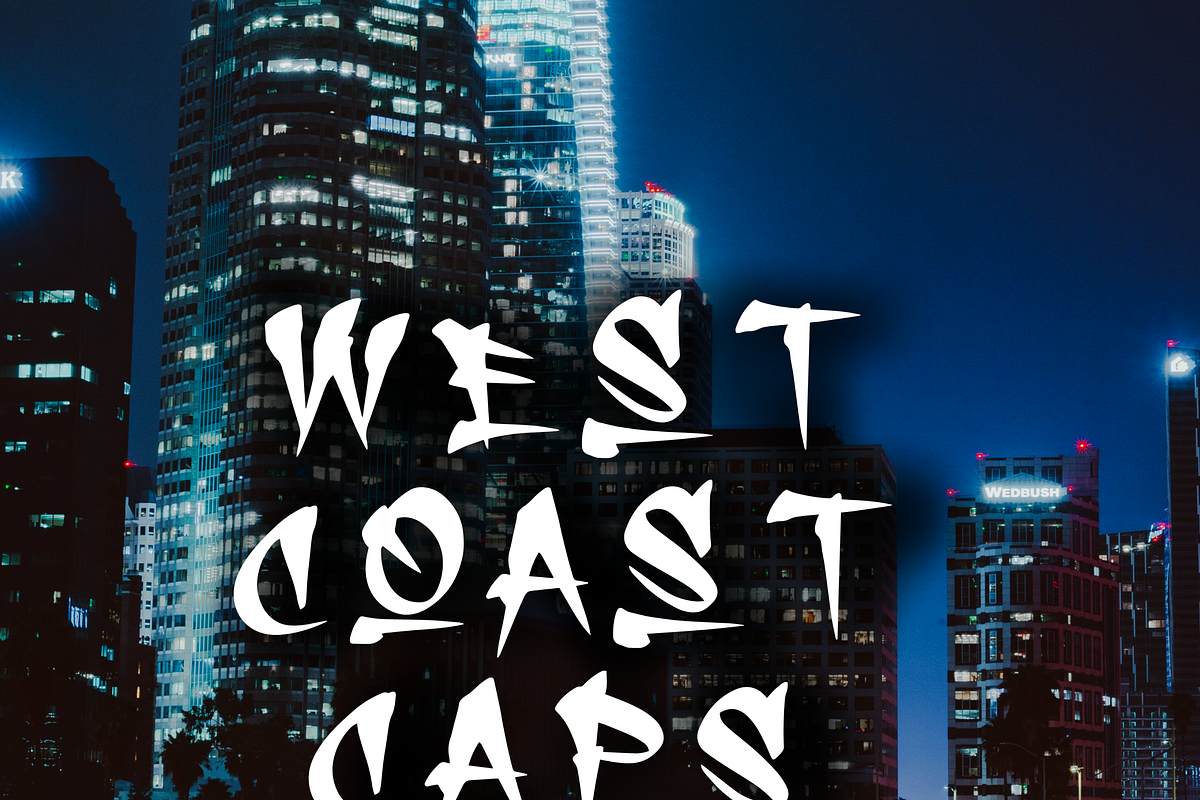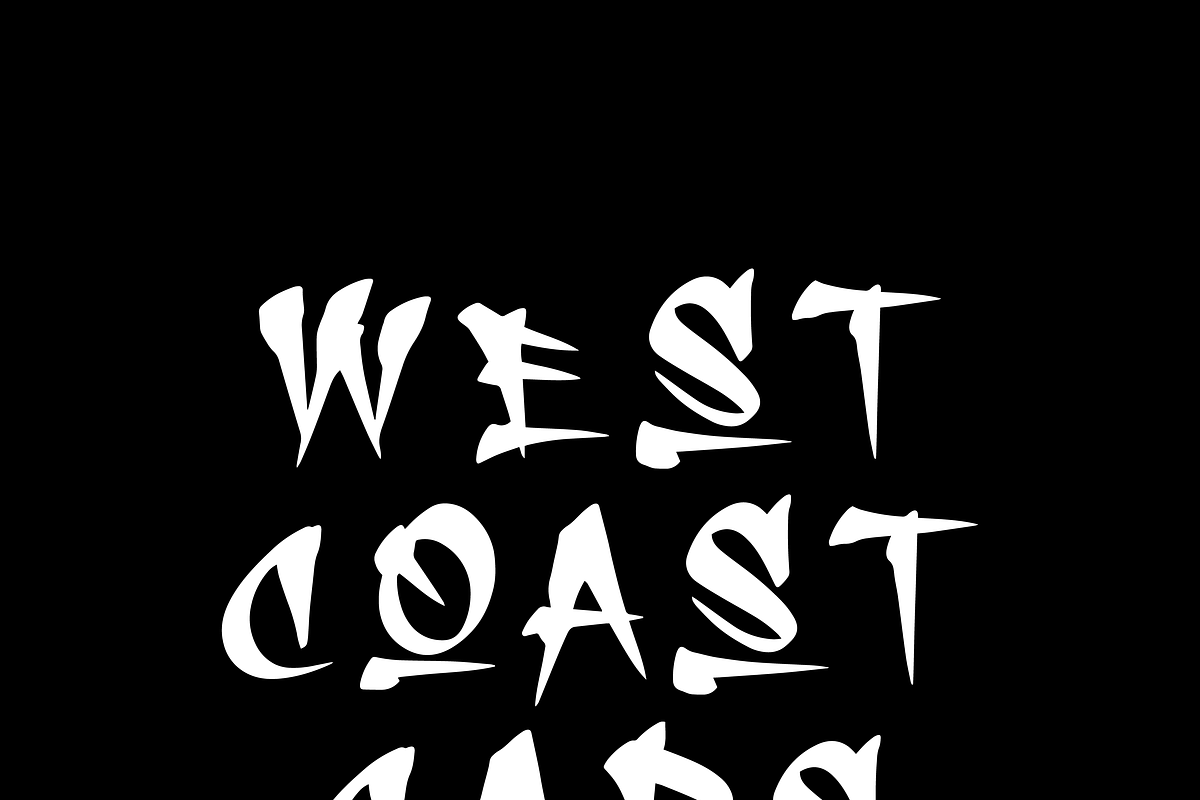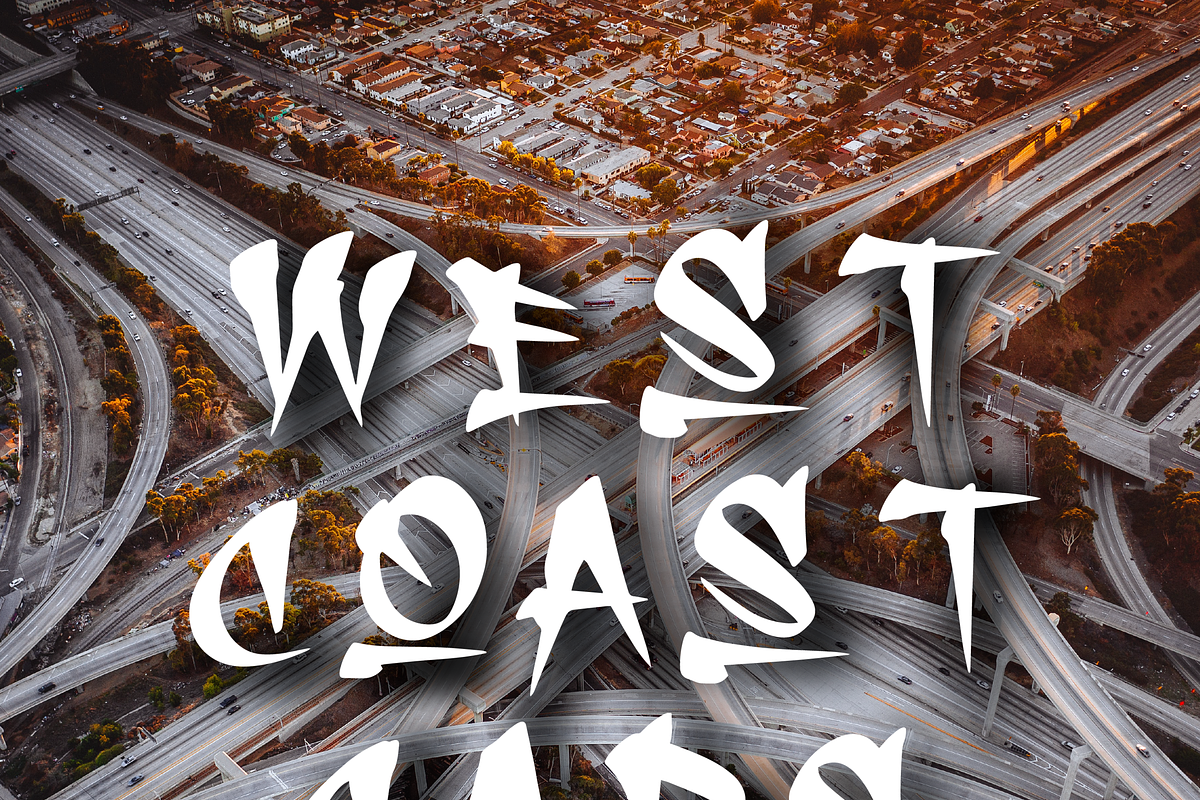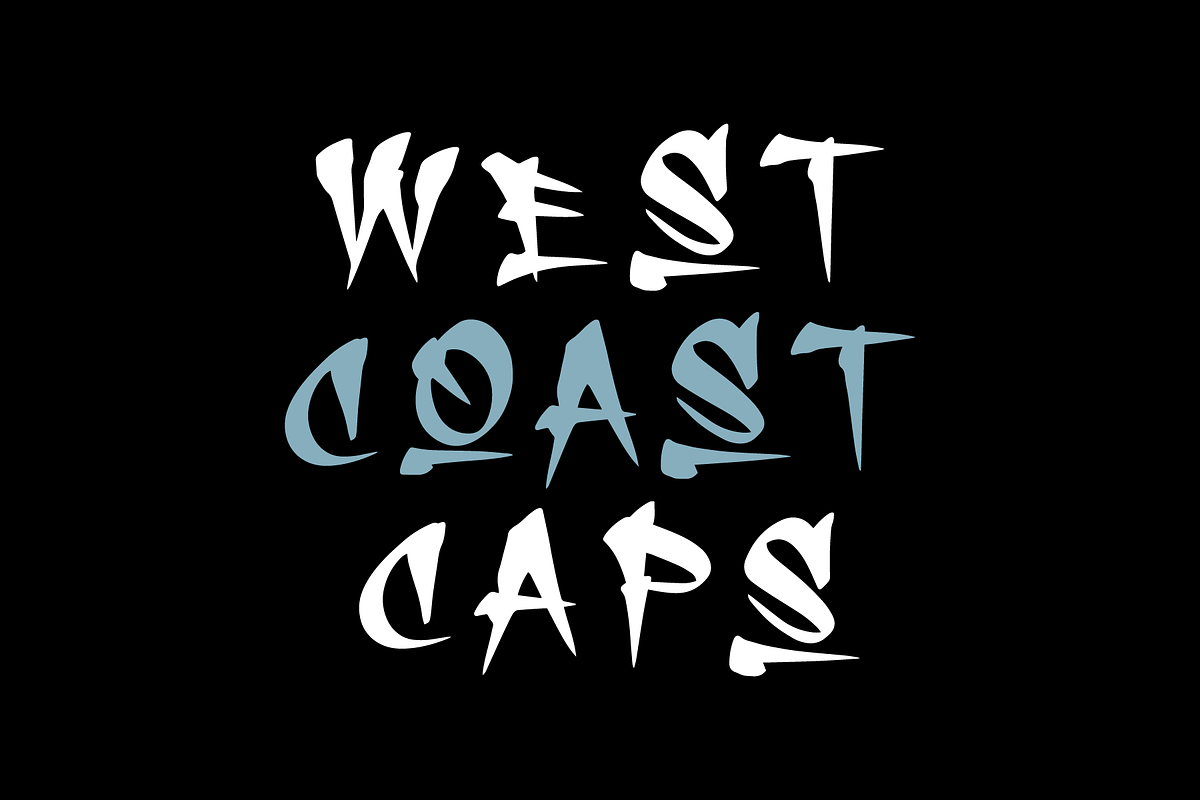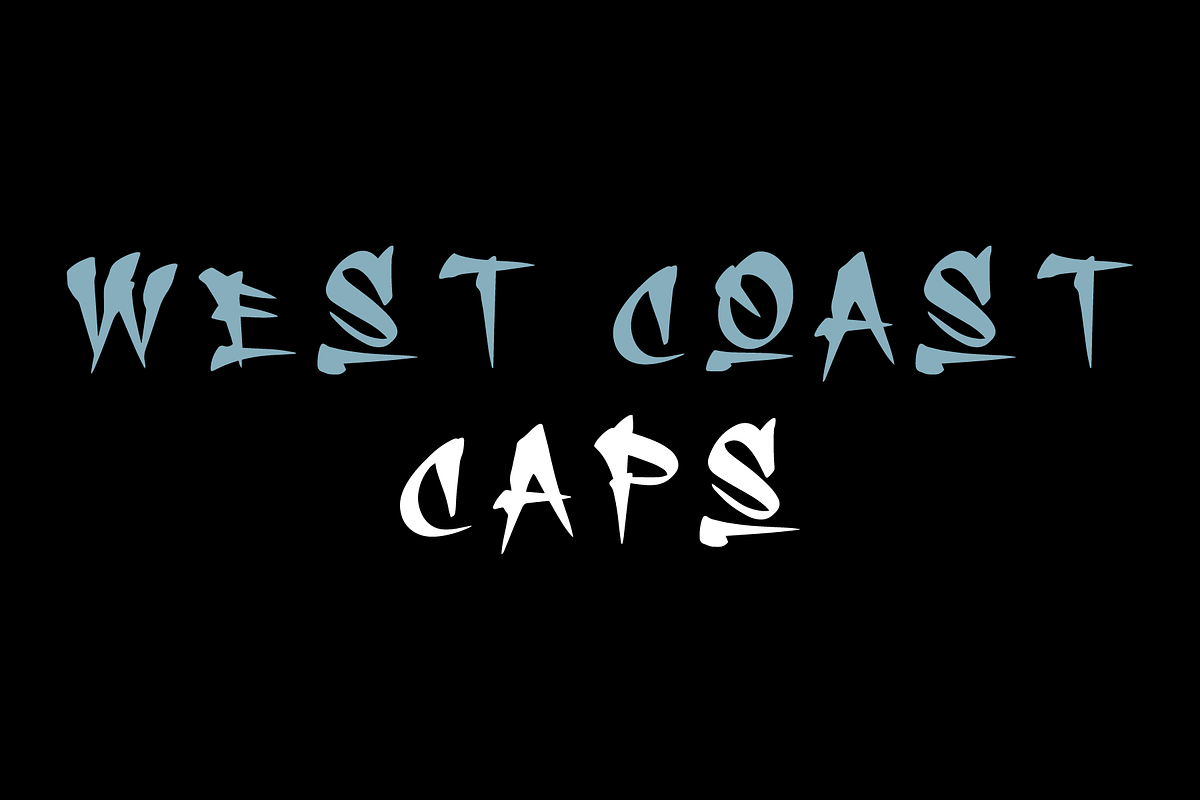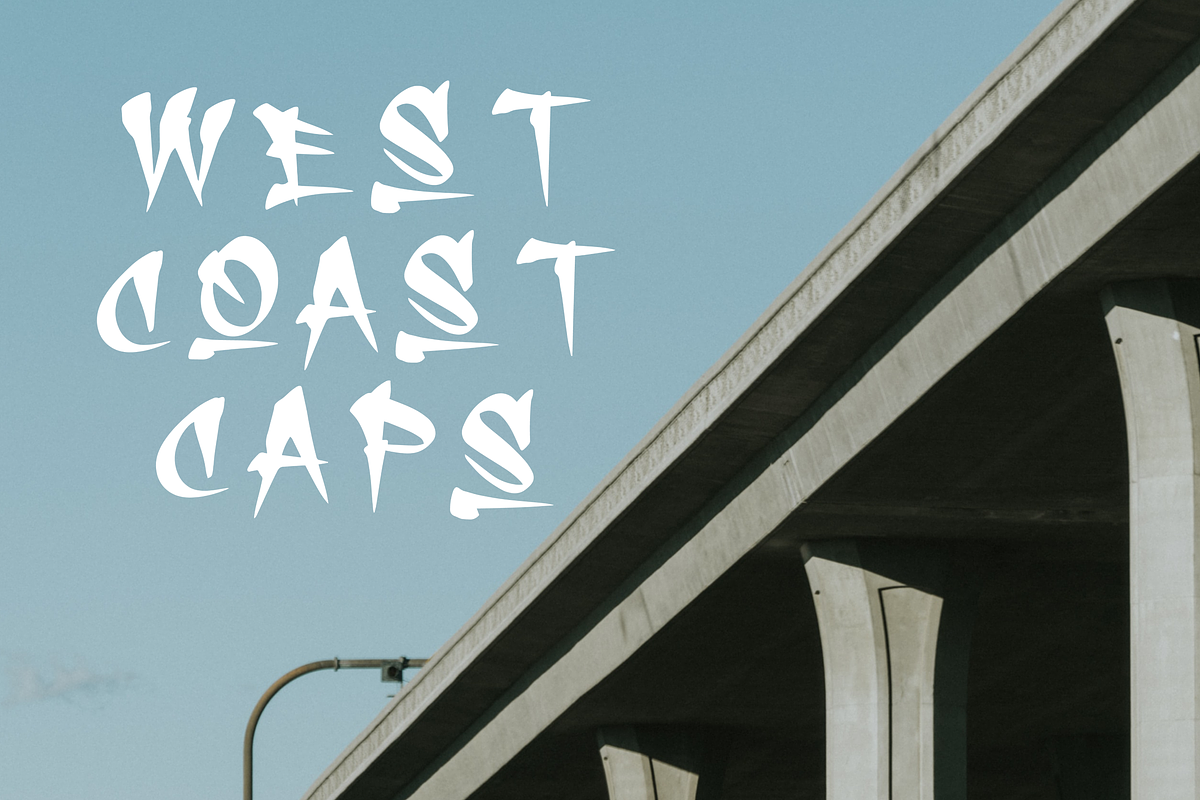
WEST COAST CAPS
WEST COAST CAPS is an all-caps .otf. This Font includes Letters A-Z as well as numbers 0-9. This Font was designed in Los Angeles, California.